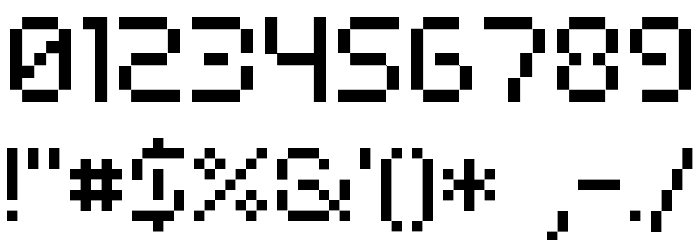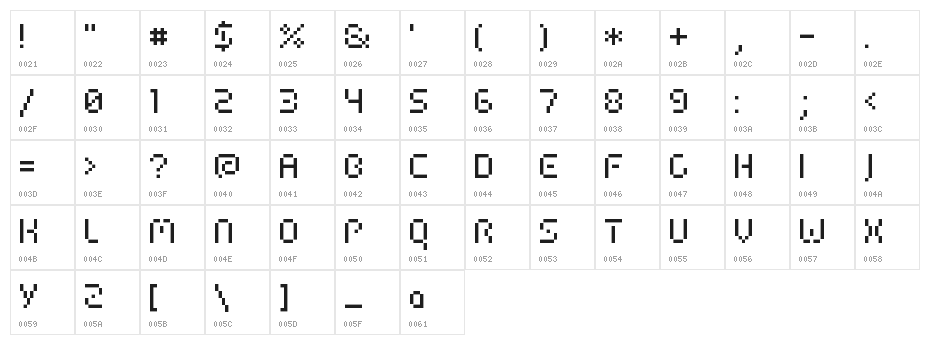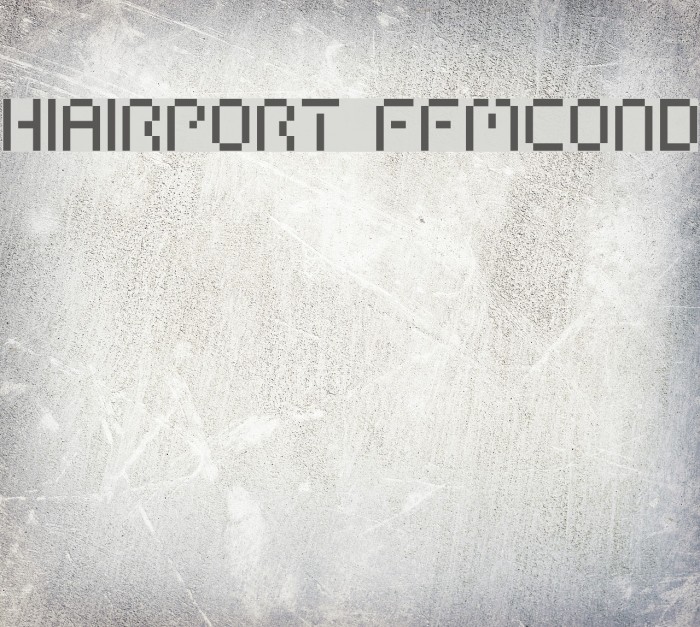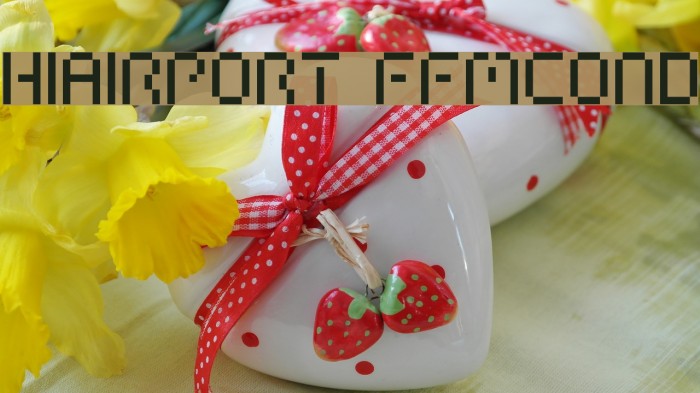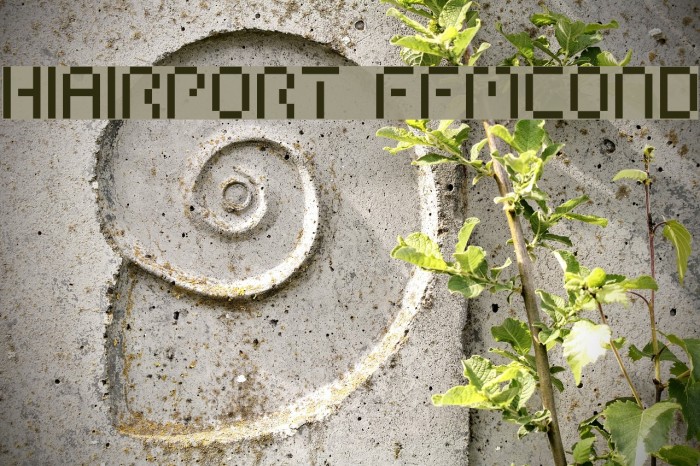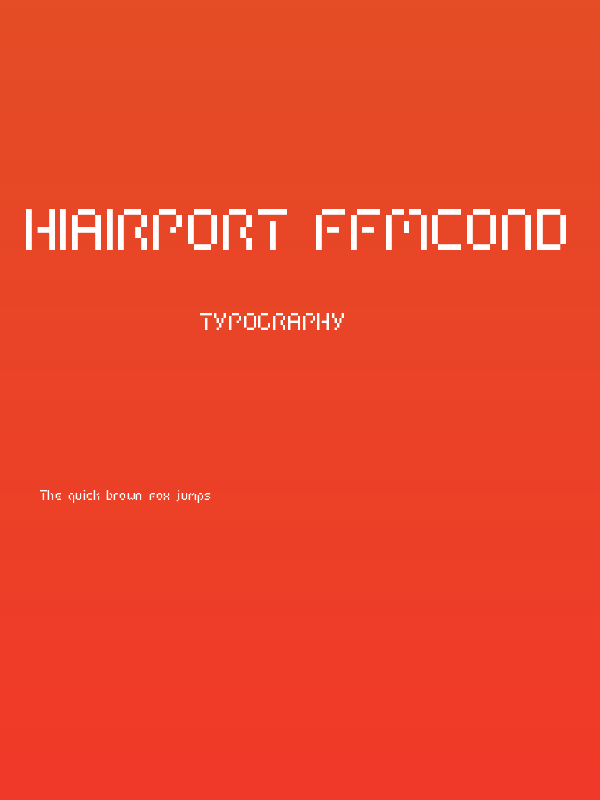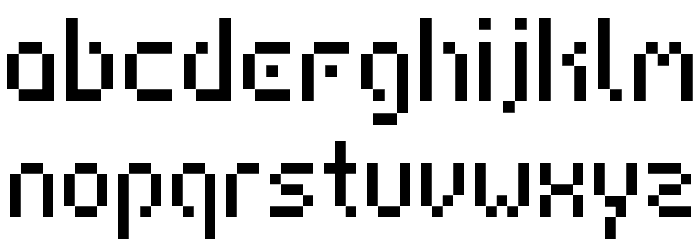
HIAIRPORT FFMCOND Font
HIAIRPORT FFMCOND Description
This font features a pixelated, blocky design reminiscent of early digital displays and retro video games. Each character is constructed with a grid-like precision, giving it a distinctly digital and geometric appearance. The uniformity in height and width across both uppercase and lowercase letters contributes to its monospaced nature. The numbers and special characters maintain the same pixelated style, ensuring consistency throughout. This font's nostalgic aesthetic makes it ideal for projects that aim to evoke a sense of vintage technology or digital minimalism.
| Use Case | Headlines, Logos, Digital displays |
| Proposed Projects | Ideal for video game design, digital art projects, retro-themed websites, and tech-inspired branding. |